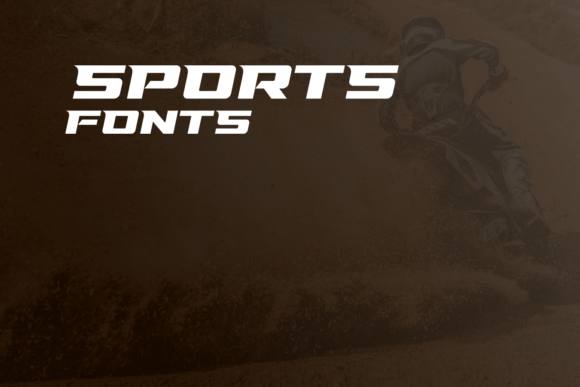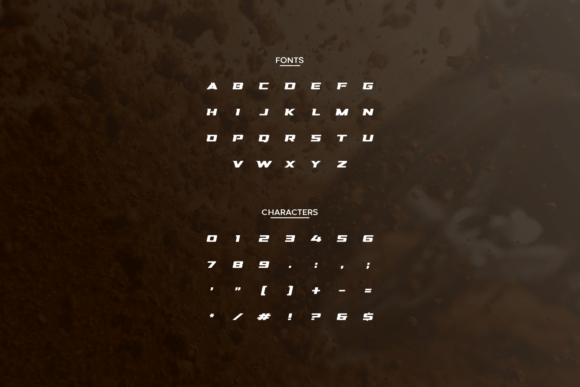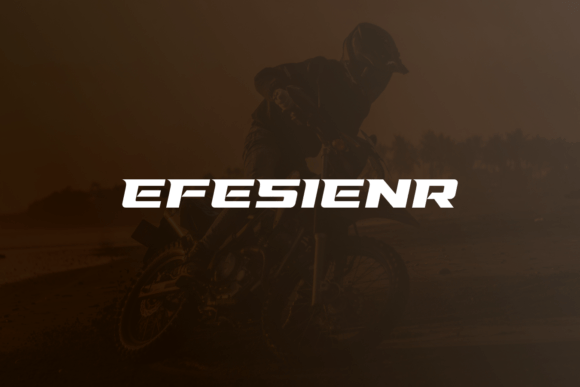
Introduction to Regcer Font
Have you ever been captivated by the thrill of a high-speed racing event, where every second counts and the rush of adrenaline is palpable? As designers, we often strive to capture the essence of such dynamic moments in our creative projects. And for that, we need the right font to convey the excitement and energy of the scene.
That’s where the Regcer Font comes in – a high-quality, modern display font designed to add a touch of sophistication and dynamism to your design. With its wide italics, transparent background, and a bold, slanted look, Regcer Font is perfect for fast-paced sports titles, running matches, and cycling events. And the best part? It’s a free download, making it an invaluable design resource for any creative project.
Key Features of Regcer Font
- High-quality design with a transparent background, perfect for creative projects.
- Includes a wide range of characters, including uppercase and lowercase letters, numbers, and punctuation marks.
- Designed to be versatile and adaptable, making it an excellent choice for a variety of creative projects, from logos to brochures.
Honest Review: Regcer Font
I recently stumbled upon the Regcer Font, and I must say it’s been a game-changer for my creative projects. This font is perfect for those who need a high-quality, modern sans-serif font with a transparent background. It’s free to download, which is a huge plus for designers like me who are always on the lookout for new design resources.
- What works well:
- ✨ Clean and minimalist design that works perfectly for digital displays
- ✨ Highly legible, making it ideal for body text and headings
- ✨ Available in various weights and styles, giving designers plenty of options
- ⚠️ Limited support for certain languages, which may be a issue for designers working on multilingual projects
- ⚠️ Not suitable for print projects, as the transparent background may not translate well to physical materials
Overall, I’m really impressed with the Regcer Font. It’s a fantastic addition to any designer’s toolkit, and I’ve already used it in several projects. If you’re looking for a high-quality, modern font that’s perfect for digital designs, I highly recommend giving the Regcer Font a try.
Tips for Getting the Most Out of Regcer Font
Experiment with different text sizes and colors to create a visually appealing design. Use the Regcer Font in combination with other design elements to add depth and interest to your project.
The Regcer Font is suitable for a variety of creative projects, including logos, business cards, brochures, and social media graphics. Its unique design and high-quality appearance make it a popular choice for designers and non-designers alike.